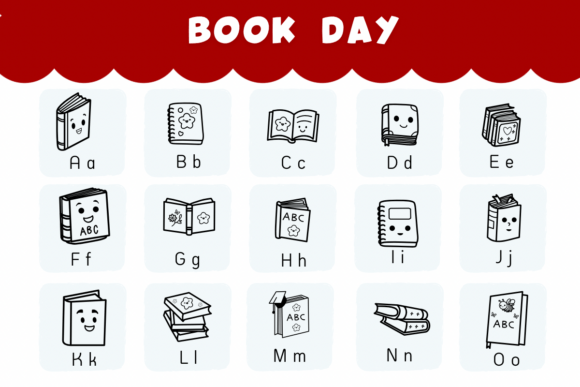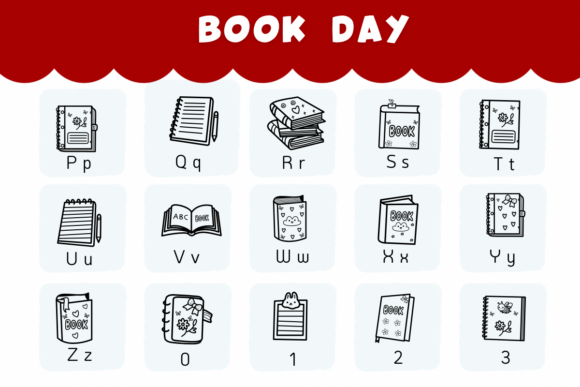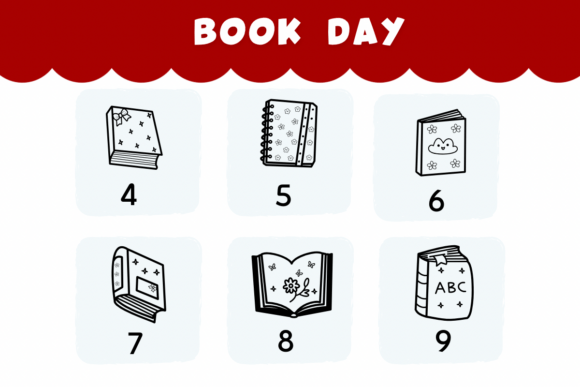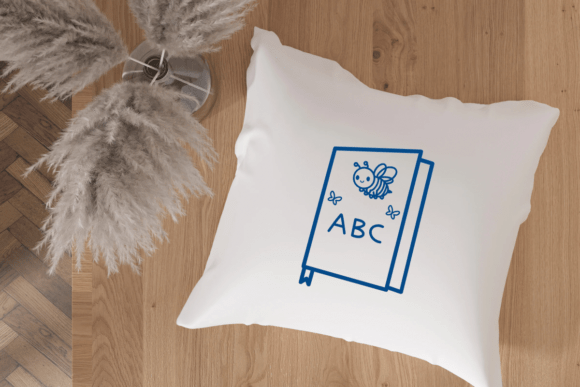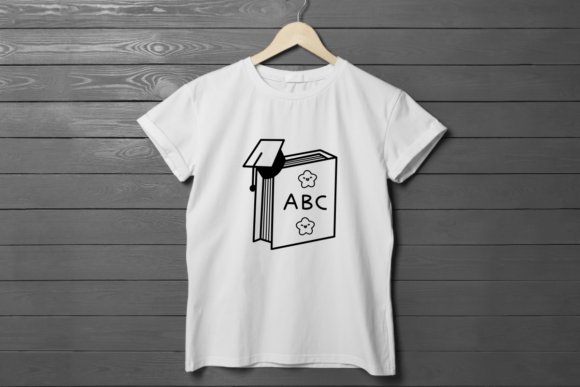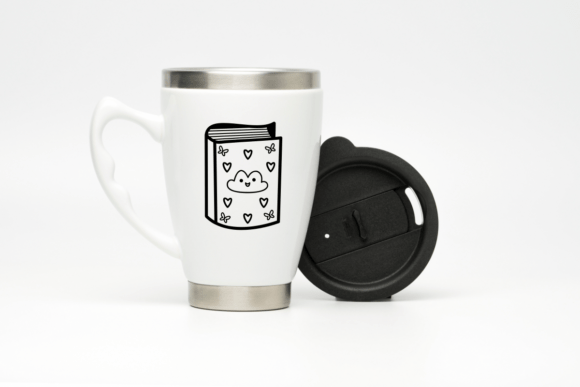
Introducing Book Day Font: Celebrating the Joy of Reading and Education
Are you a designer, educator, or book lover looking for a unique and engaging way to add a touch of whimsy to your academic or literary projects? Look no further than Book Day Dingbates Fonts, a charming collection of line-art icons designed to bring a sense of joy and wonder to any educational or literary endeavor.
A Delightful Collection of Book-Themed Icons
This delightful set features a variety of professionally illustrated book-themed characters, each one carefully crafted to convey a sense of friendly approachability and love of learning. You’ll find anthropomorphic textbooks with friendly faces, spiral notebooks, and open readers adorned with hearts, stars, and graduation caps. These charming icons are sure to capture the hearts of readers and learners of all ages.
Clean, Monolinear Aesthetic with a “Kawaii” Personality
One of the standout features of Book Day Dingbates Fonts is their clean, monolinear aesthetic, which gives them a modern and sophisticated look that’s perfect for a wide range of applications. But it’s their “kawaii” personality that really sets them apart – these icons are designed to be cute, charming, and engaging, making them an exceptional choice for library branding, school event posters, educational worksheets, and bookstore social media content.
Whether you’re designing materials for World Book Day, creating custom stickers for a classroom, or simply looking for a unique way to add some visual interest to your educational or literary projects, Book Day Dingbates Fonts are the perfect choice. Their versatility and charm make them suitable for a wide range of applications, including:
- Library branding and marketing materials
- School event posters and flyers
- Educational worksheets and activity sheets
- Bookstore social media content and advertising
- Custom stickers and stationery
Bringing a Sense of Joy and Wonder to Your Designs
Book Day Dingbates Fonts are more than just a collection of icons – they’re a way to bring a sense of joy and wonder to your designs. With their friendly, approachable characters and clean, modern aesthetic, these fonts are sure to delight readers and learners of all ages. Whether you’re a designer looking to add some visual interest to your work or an educator seeking to create engaging and interactive materials, Book Day Dingbates Fonts are the perfect choice.
Here are just a few key features and benefits of Book Day Dingbates Fonts:
- Professionally illustrated book-themed characters
- Clean, monolinear aesthetic with a modern and sophisticated look
- “Kawaii” personality that’s cute, charming, and engaging
- Versatile and suitable for a wide range of applications
- Perfect for World Book Day, educational projects, and literary endeavors